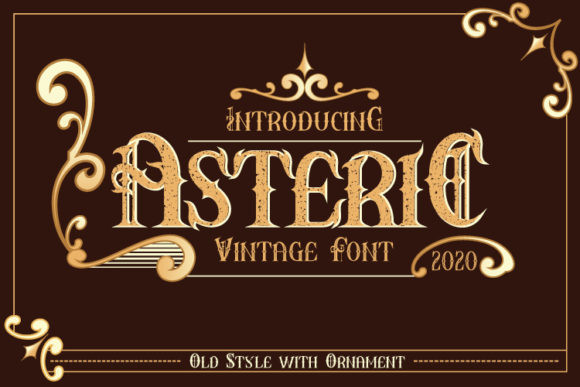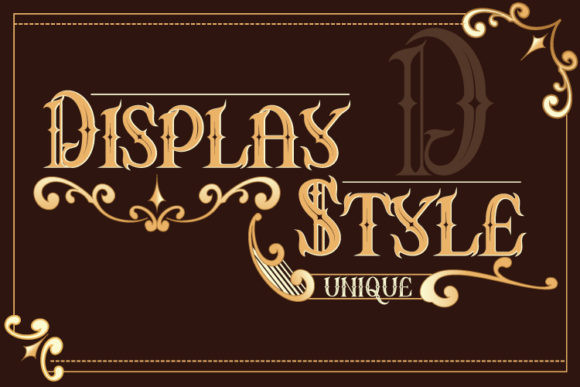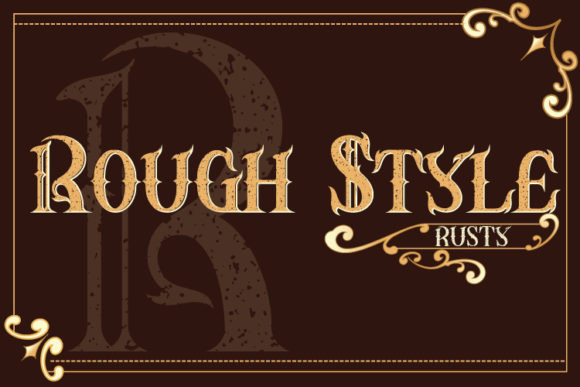
Asteric Font
Asteric is a retro vintage font and has amazing ornaments. It comes in 3 different styles: Rough, Display, and Basic. Use it for any design project that requires a personalized appearance!